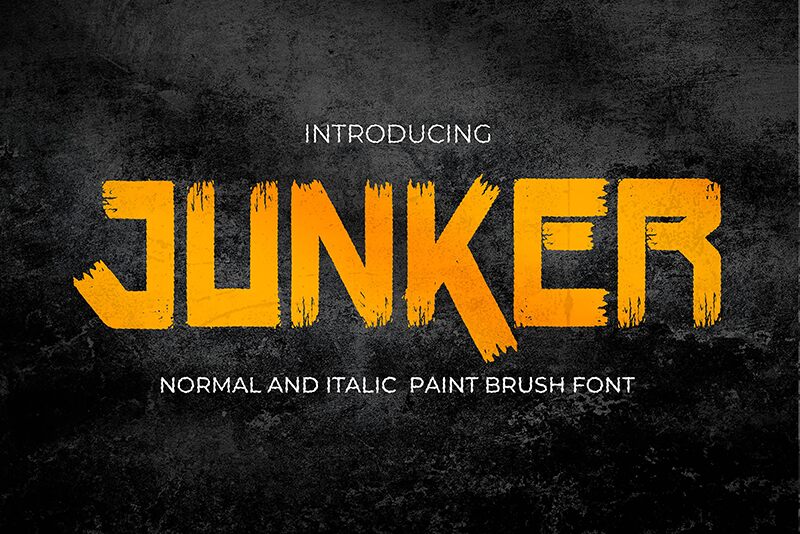
JUNKER - a bold and authentic brush font designed by Gassstype. With its casually written style, this Modern Font is perfect for adding a touch of creativity to your designs. Crafted from hand-drawn letters using Procreate, JUNKER exudes a cool and natural look that captures attention.
Whether you're working on branding projects, logo design, or product packaging, this typeface is ideal for projects that require a strong and impactful font. Bring your ideas to life with the boldness and uniqueness of JUNKER - the perfect choice for any creative endeavor.